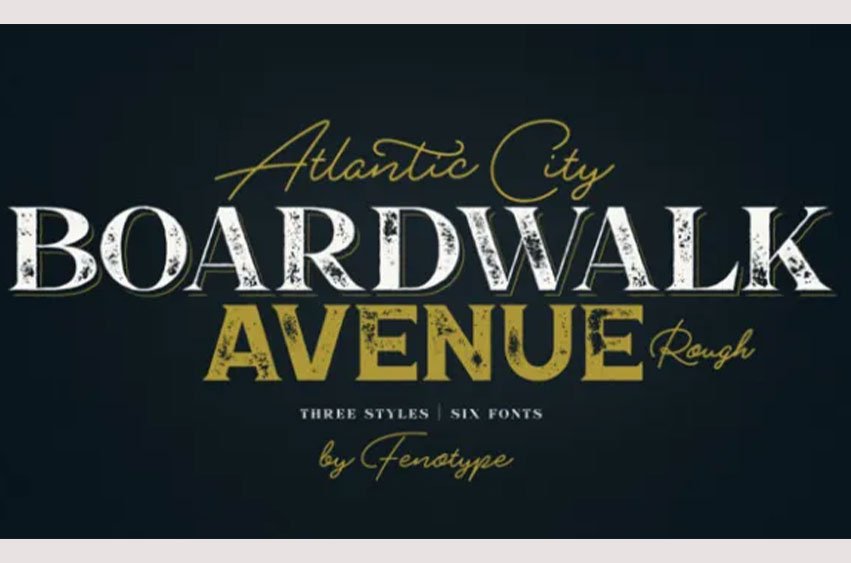
Boardwalk Avenue Font is a textured version of Boardwalk Avenue. It’s a robust type collection of three styles and two weights of each. It’s divided into Boardwalk Pen, Boardwalk Antiqua, and Boardwalk Serif. Boardwalk Avenue’s core is a connected mono-linear script that works fantastic when paired with either of the impressive serif styles. All the fonts work great on their own but try putting them all together for a complete display font setup for a project.